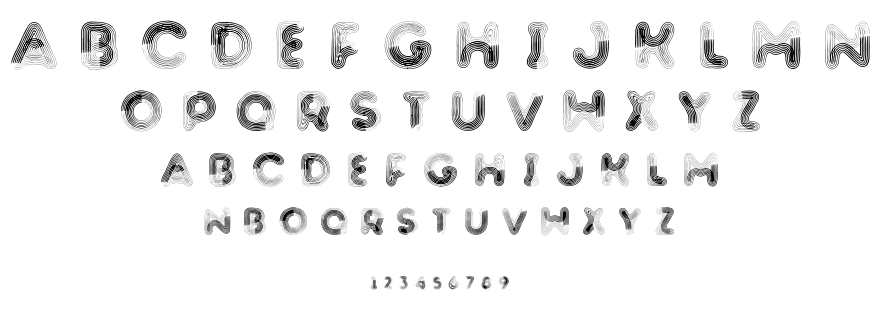
Barnstormer is an all caps, display typeface influenced by the stunt pilots of the early 20th century. Two other aeronautical-inspired typefaces (“Wingwalker” and “Dogfighter”) round out the Barnstormer font family.